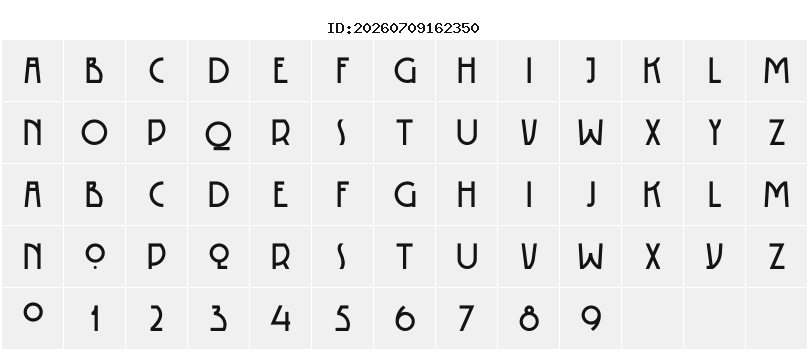
DK Rotorua Preview
• Font Name: DK Rotorua
• Designer: David Kerkhoff
About DK Rotorua.otf
DK Rotorua.otf is a modern, elegant sans-serif font designed for ultimate readability and visual harmony. Perfect for branding, headlines, web design, and print materials.